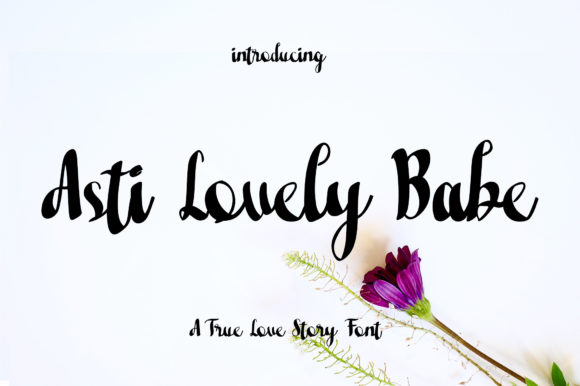
Introducing Asti Lovely Babe Font, an enchanting script font that weaves grace and elegance into your digital designs. Embrace the timeless charm of classic calligraphy, reimagined with a contemporary twist, and embark on a creative journey that knows no bounds.
Asti Lovely Babe is a versatile and expressive font that caters to a multitude of design endeavors. Its balanced and varied strokes bring forth a visual harmony that adds sophistication and charm to any project. Whether you're a wordsmith crafting heartfelt letters, a designer conjuring captivating logos, or a social media maven seeking to elevate your posts, Asti Lovely Babe is the perfect companion for your creative endeavors.
Dive into a world of infinite possibilities as you explore the myriad of ways to harness the power of Asti Lovely Babe. Create eye-catching headlines that demand attention, craft unforgettable invitations that spark anticipation, or design stunning social media posts that captivate your audience. With Asti Lovely Babe at your disposal, your designs will blossom with elegance and leave a lasting impression.
Asti Lovely Babe is not just a font; it's an artistic expression that breathes life into your words. Its smooth curves and delicate flourishes evoke a sense of romance and nostalgia, making it the ideal choice for projects that aim to stir emotions and create a lasting impact.
So, unleash your creativity and let your imagination run wild with Asti Lovely Babe. Experience the joy of crafting designs that resonate with grace, elegance, and timeless beauty. Embrace the power of Asti Lovely Babe and watch as your creative visions come to life in captivating and mesmerizing ways.